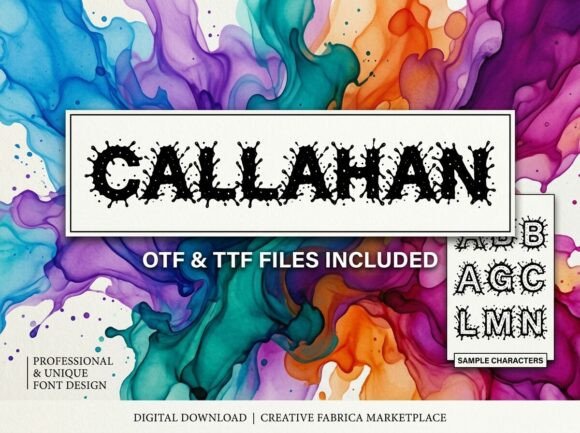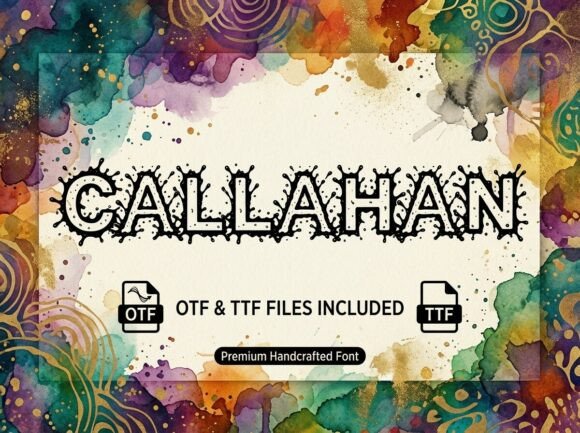
Introducing Callahan Font: A Stunning Decorative Display Font
Are you tired of using the same old fonts for your designs? Do you want to make a statement and stand out from the crowd? Look no further than the Callahan Font, a beautiful and unique decorative display font that’s perfect for creators who want to add a touch of elegance and sophistication to their work.
A Font that’s Truly One-of-a-Kind
The Callahan Font is a stunning decorative display font designed to be the center of attention. With its unique artistic elements and strong visual personality, this font is sure to make your designs pop. Whether you’re looking to create bold headlines, artistic logos, or creative packaging, the Callahan Font is the perfect choice.
One of the things that sets the Callahan Font apart is its versatility. Despite its decorative nature, this font is polished and professional, making it suitable for a wide range of design applications. From branding and advertising to packaging and editorial design, the Callahan Font is the perfect tool for any designer looking to add a touch of elegance and sophistication to their work.
Important Note: All-Caps Display Typeface
Before you purchase the Callahan Font, it’s essential to note that this font is an ALL-CAPS (Uppercase Only) display typeface. This means that it does not include lowercase letters. The Callahan Font is specifically designed for high-impact headlines, logos, and decorative initials where every letter is a work of art.
This unique design approach allows for a level of detail and craftsmanship that’s unparalleled in traditional fonts. Each uppercase letter is carefully crafted to be a stunning work of art, making the Callahan Font perfect for designs where you want to make a bold statement.
The Callahan Font is perfect for designers and crafters who want to add a touch of elegance and sophistication to their work. Whether you’re a professional designer or a DIY crafter, this font is easy to use and versatile enough to work with a wide range of design software and applications.
Some of the many uses for the Callahan Font include:
- Creating stunning headlines and titles for blogs, articles, and social media posts.
- Designing eye-catching logos and branding materials for businesses and organizations.
- Adding a touch of elegance to packaging and product design.
- Creating beautiful and unique decorative initials for invitations, certificates, and other special documents.
Why Choose the Callahan Font?
So why choose the Callahan Font over other decorative display fonts on the market? Here are just a few reasons:
- Unique and artistic design that’s sure to stand out.
- Versatile and polished finish that’s suitable for a wide range of design applications.
In conclusion, the Callahan Font is a stunning decorative display font that’s perfect for designers and crafters who want to add a touch of elegance and sophistication to their work. With its unique artistic elements, strong visual personality, and versatile design, this font is sure to make your designs pop. Whether you’re looking to create bold headlines, artistic logos, or creative packaging, the Callahan Font is the perfect choice.